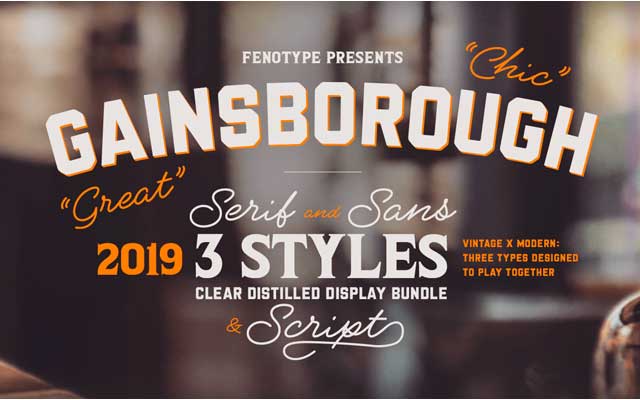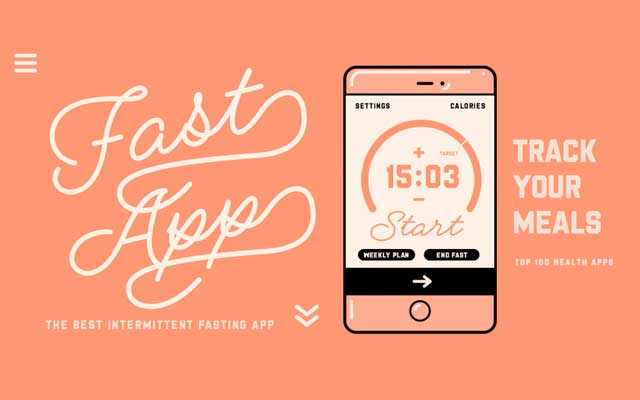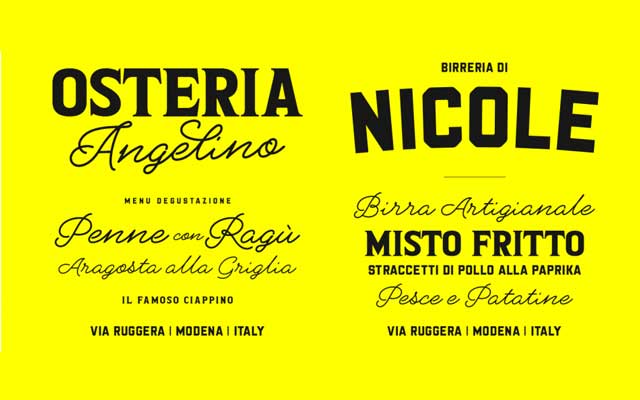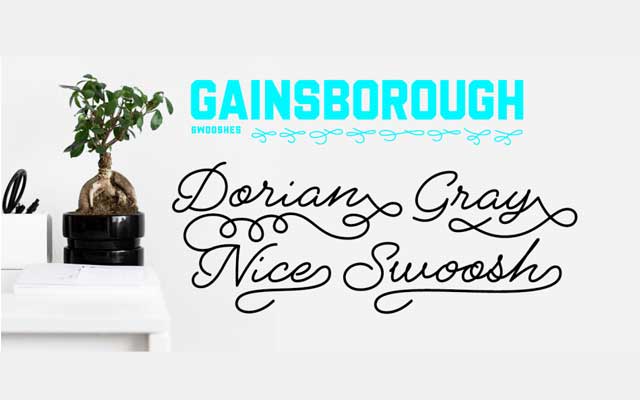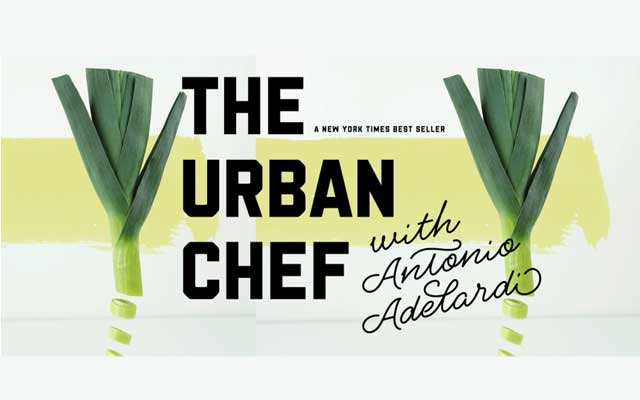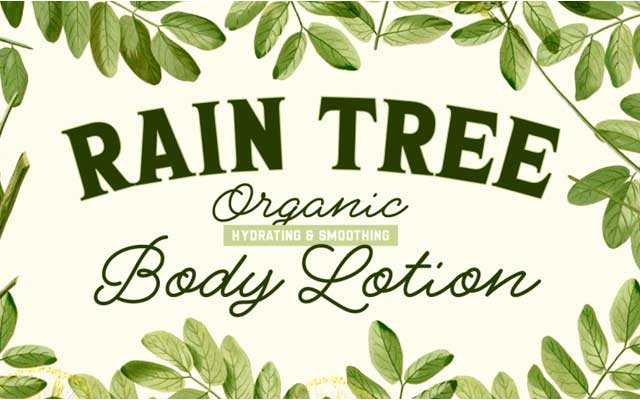
Gainsborough Font Family
Gainsborough Font – Clean Cut Display Pack. Gainsborough is a showcase combo pack of three styles and additional swooshes. Gainsborough textual styles are clear with trademark clearness. All three text styles are intended to play together. Gainsborough is anything but difficult to utilize. Download More Premium Font Free.
Gainsborough Typeface Pen is an unmistakable content motivated by penmanship with shade pen however cleaned clean to be readable and welcoming. It’s furnished with Contextual Alternates and Standard Ligatures for smooth stream and associations between letters. What’s more, there’s Stylistic and Swash Alternates for standard characters.